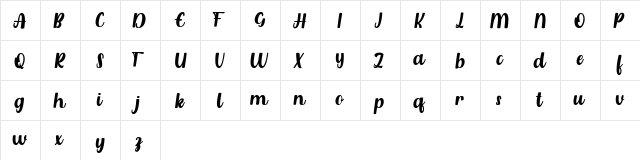
Azarita Italic FREE Italic
Design Context for Azarita Italic FREE Typeface
Azarita Italic FREE is a composed and adaptable typeface that performs quietly and consistently across a wide range of design contexts. The slanted form adds forward momentum and visual energy.
Pro Tip: Use Azarita Italic FREE for emphasis, pull quotes, and subheadings where its slanted energy can add rhythm to the layout.